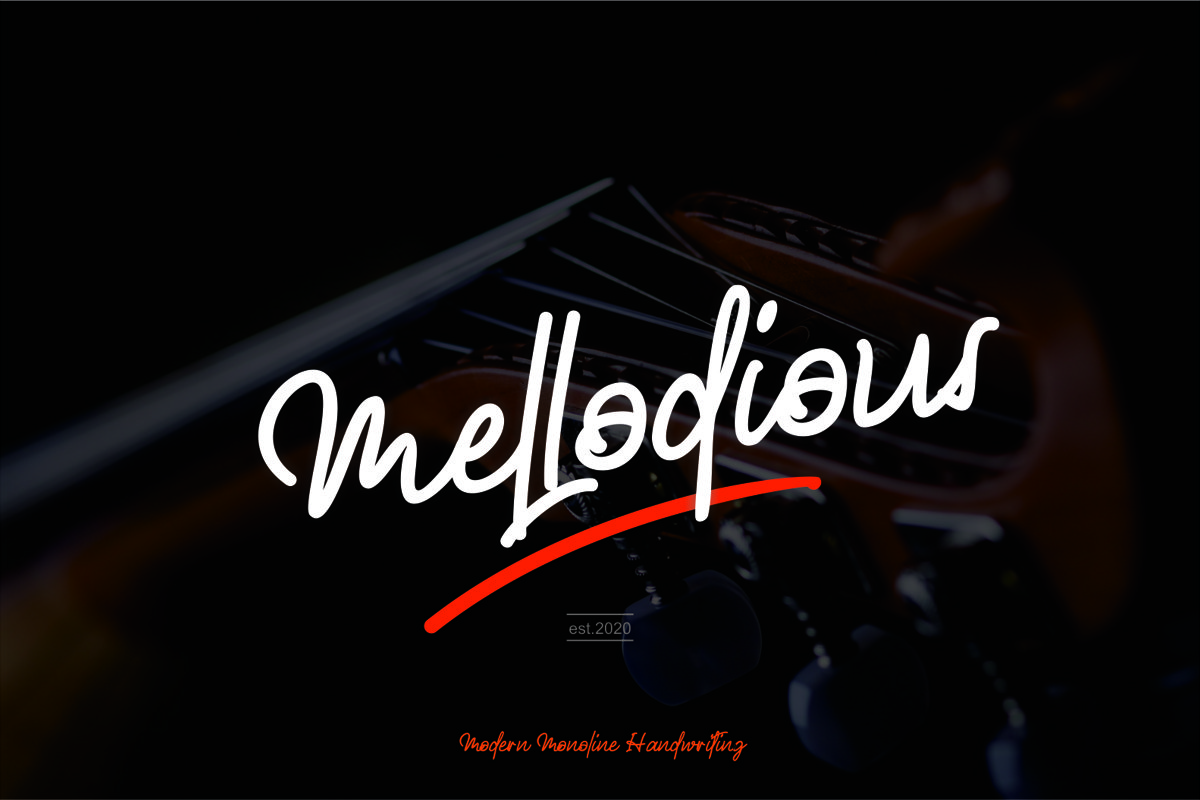
Mellodious
Monoline script font with a natural style that has a soft handwriting touch is suitable to be your business identity logo and various product brands. Thank you for using our font